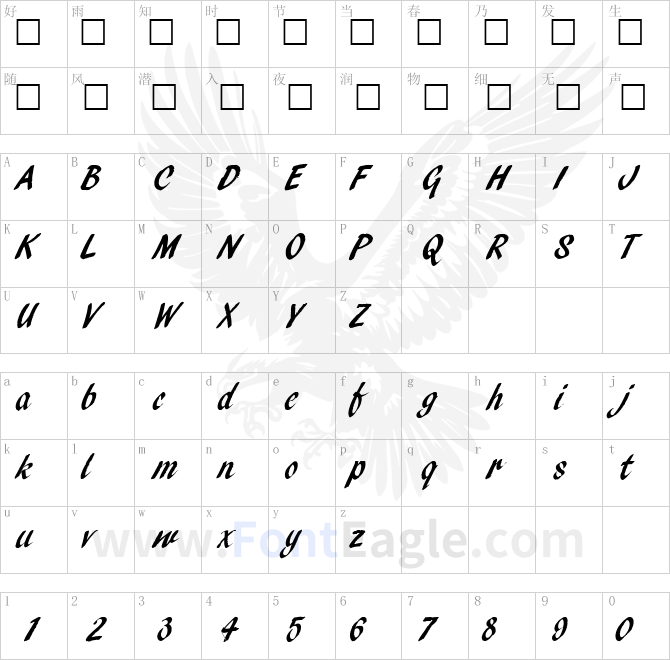
- Font name:PencilScript
PencilScript-Regular is a great font, widely used in graphic design, single-page menu design, poster design and other fields, and is deeply loved by designers.PencilScript-Regular download.